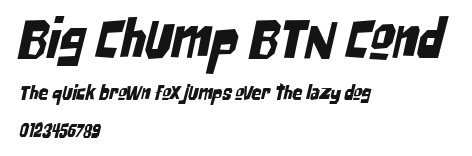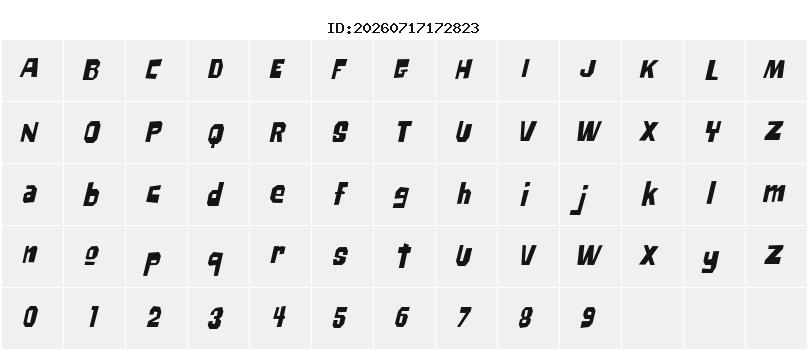
• Font Name: Big Chump BTN Cond
• Font Style: Oblique
• Font ID: Big Chump BTN Cond Oblique
• Full Font Name: Big Chump BTN Cond Oblique
• PostScript Name: BigChumpBTNCondOblique
• Character Count: 264
• Copyright: (C) 2003 Bitstream Inc. & Astigmatic. All Rights Reserved. Designed by Brian J. Bonislawsky. http://www.astigmatic.com/ ROE
Big Chump BTN Cond.ttf is a modern, elegant sans-serif font designed for ultimate readability and visual harmony. Perfect for branding, headlines, web design, and print materials.